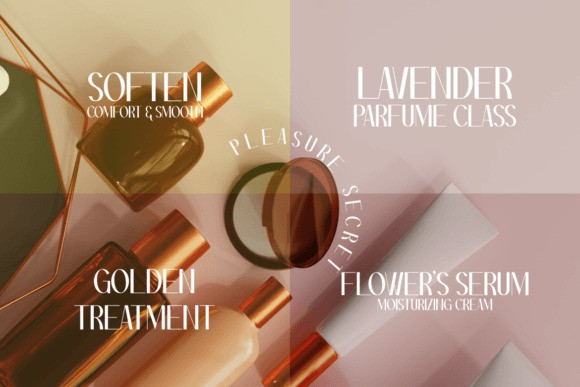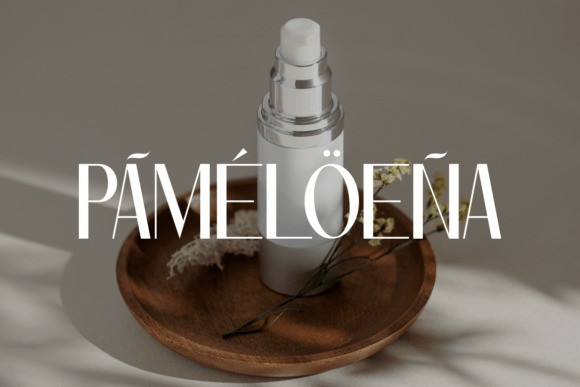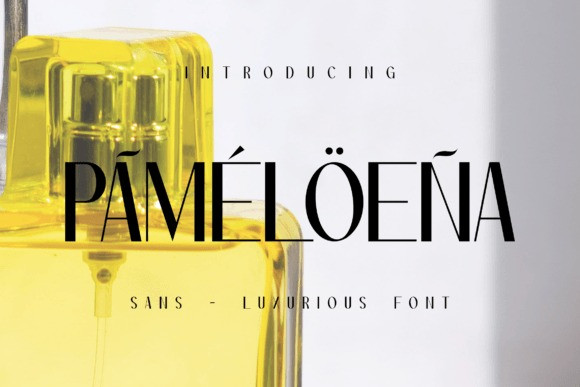
Pameloena Font
Pameloena Font, It is the thought of a sans-serif font combined with a bold, bold shape to form a font like this one. This font was created for all forms of business and branding such as clothing, logos, skate boards and others according to your needs.